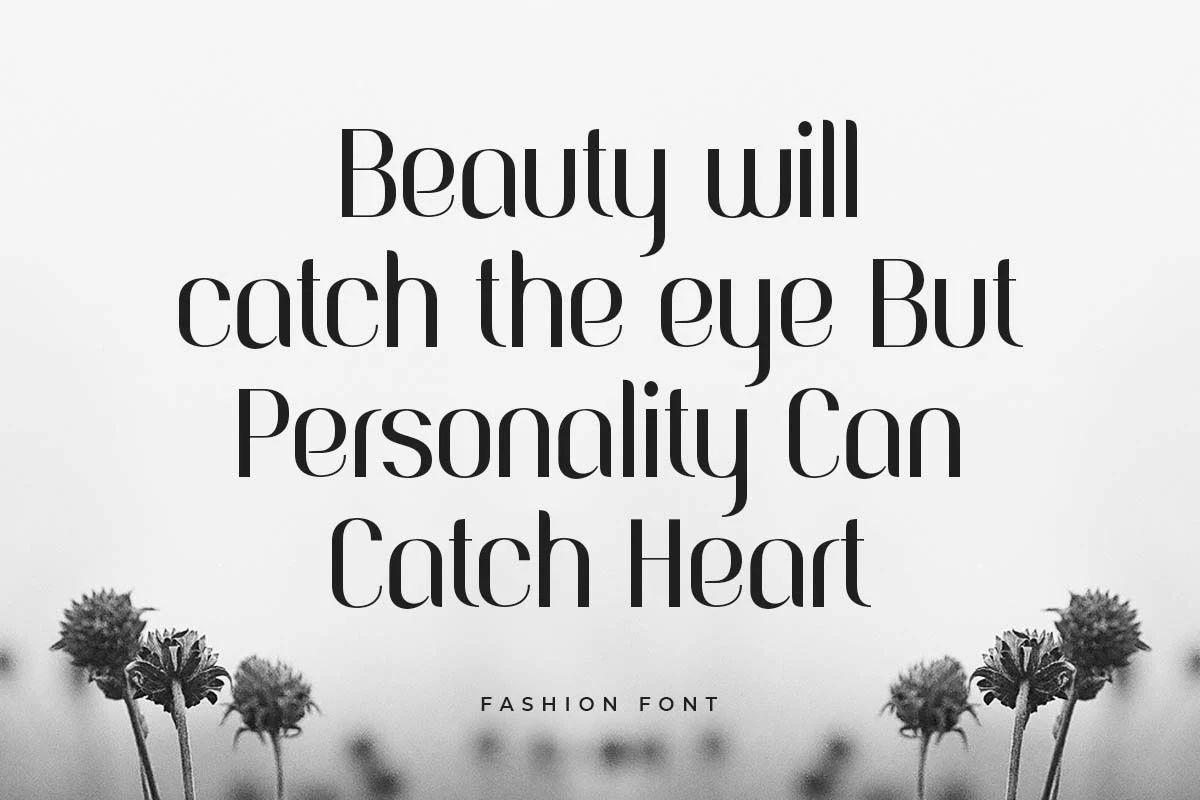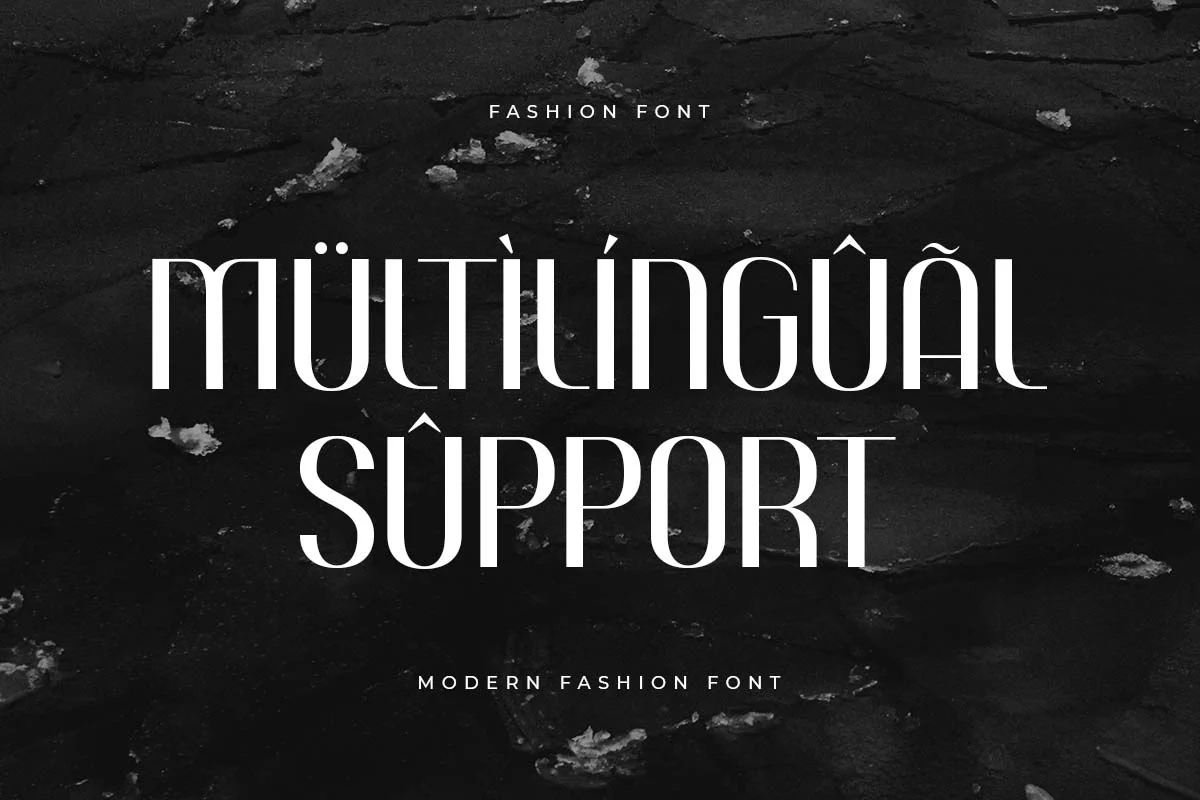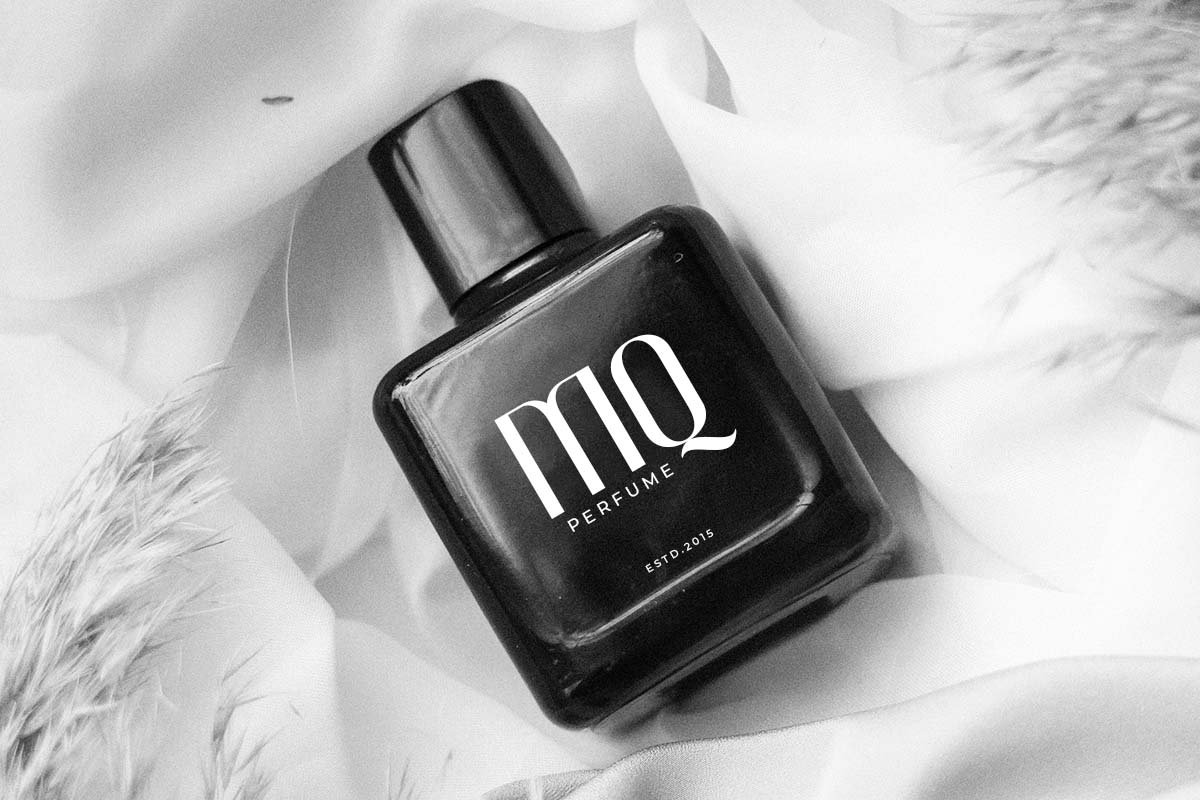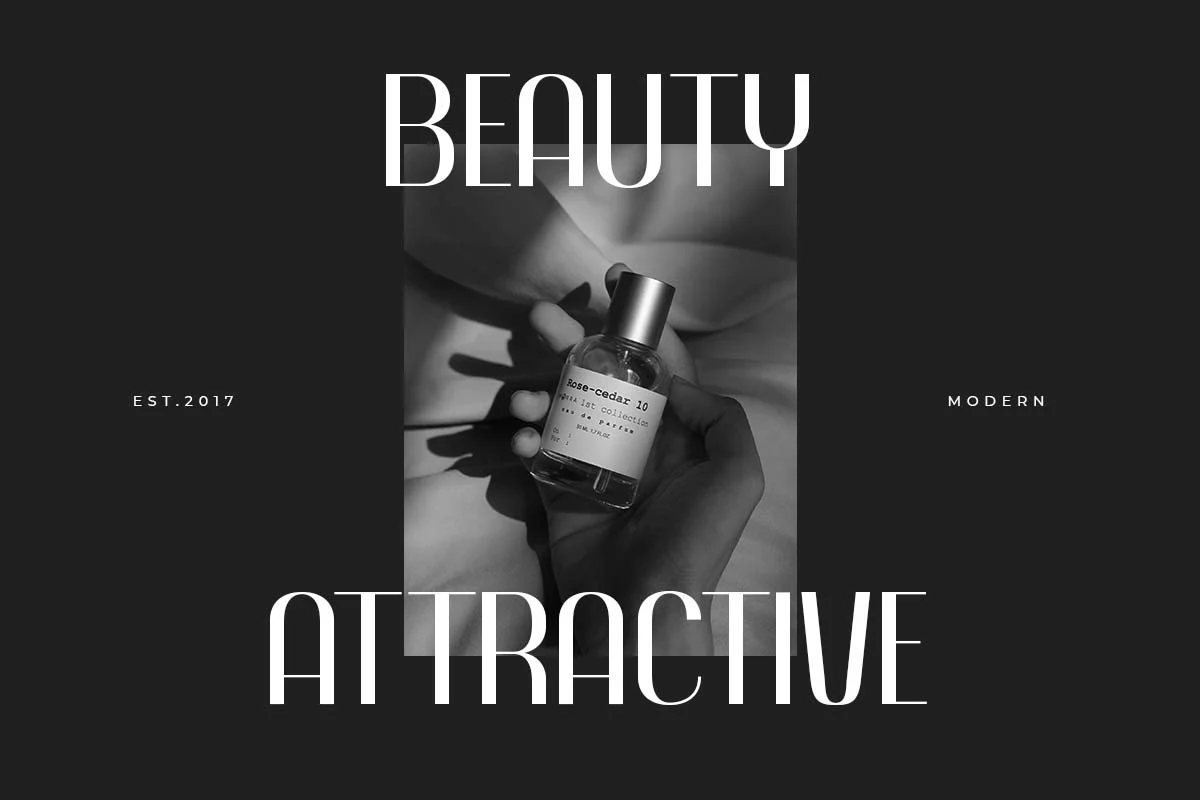
Fashion – Modern Fashion Font
Fashion is a Modern Fashion Sans Serif Font with Sharp shape make your design look classy and elegant
A new San Serif Font that we created special for Headline, Title and more stand out typography needs, with beauty characters that will add your variations. It's so perfect to add your style and headline overview. And specially for Fashion font, we crafted for unique style and modern feels so enjoy to create any project that will show your main idea out.